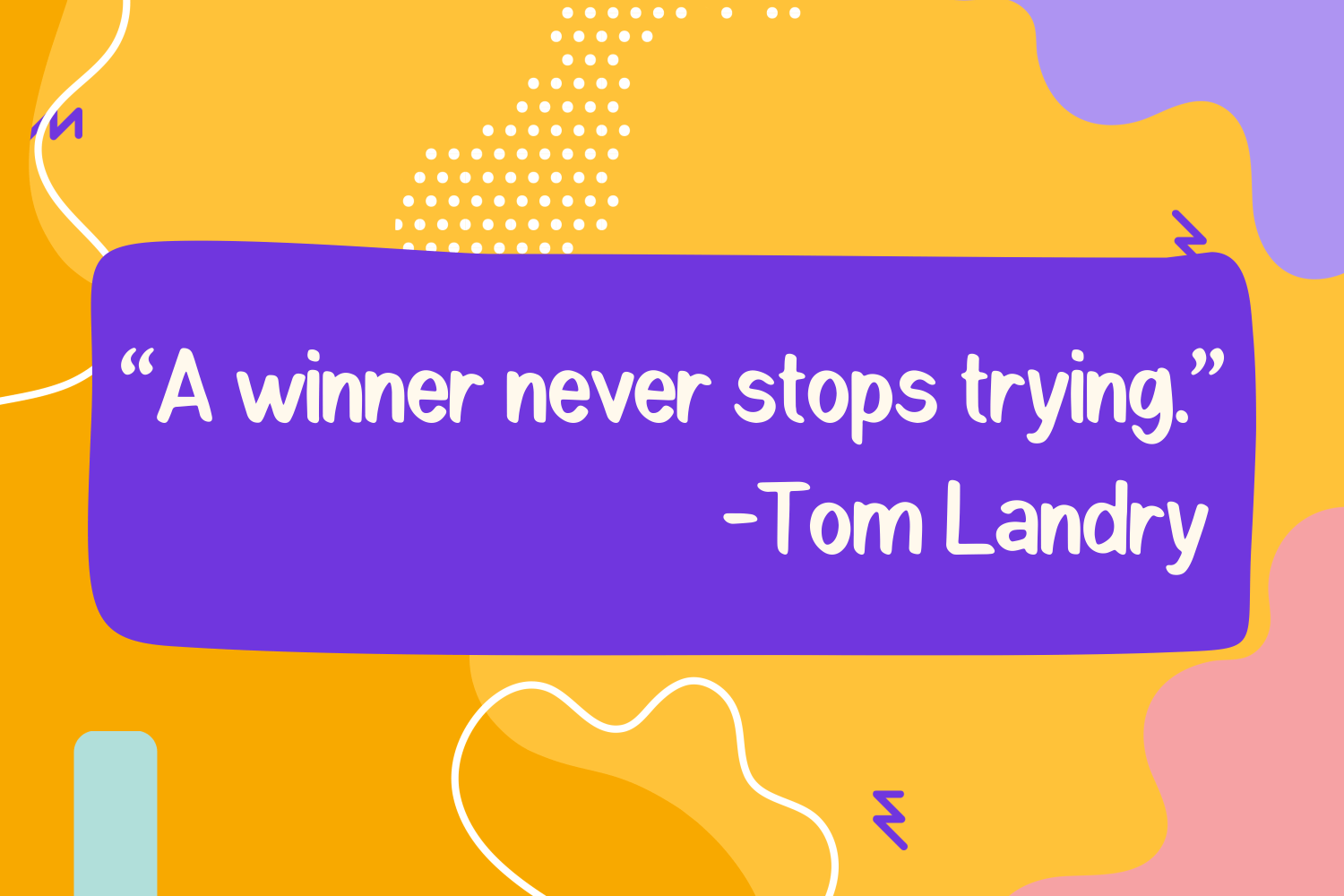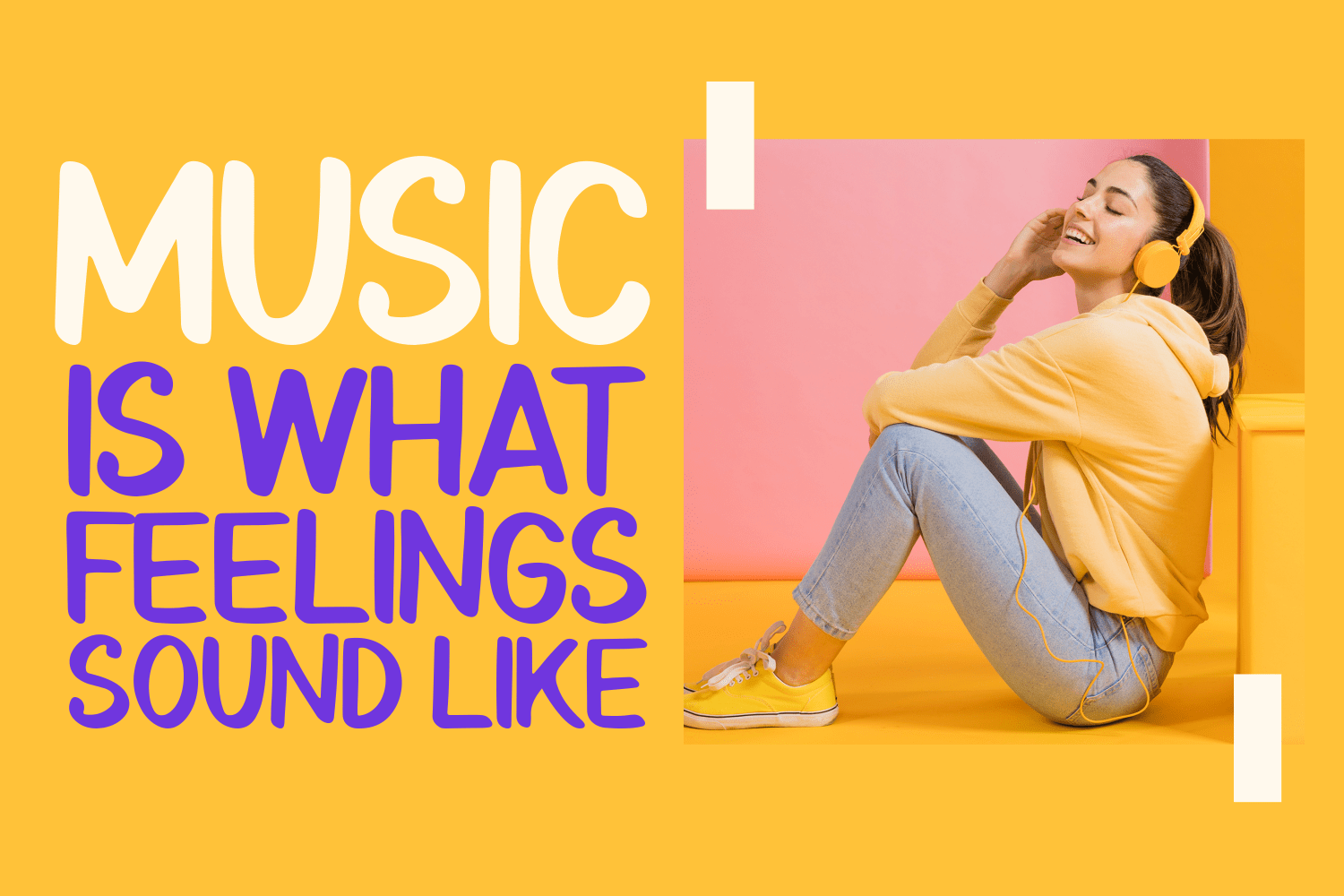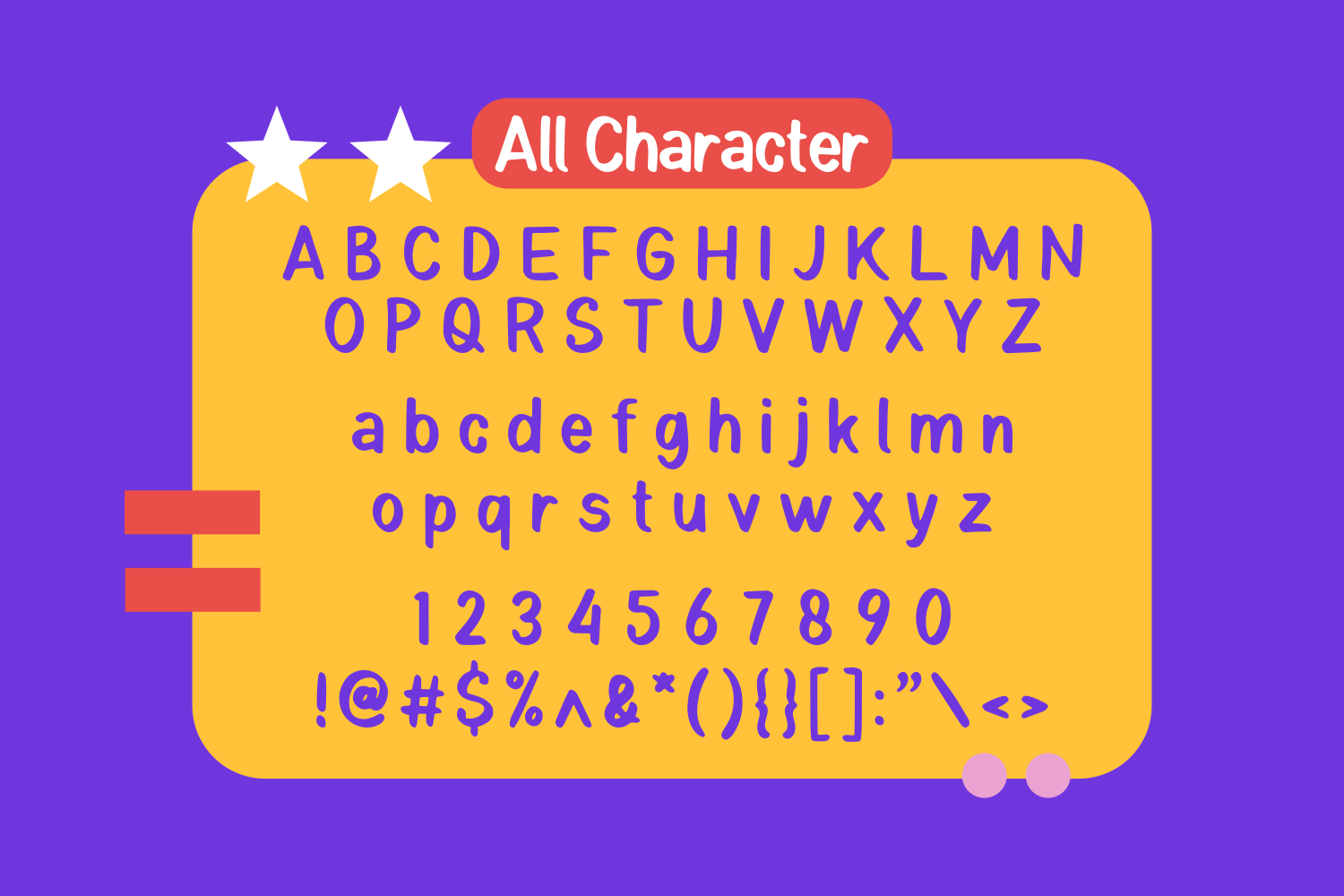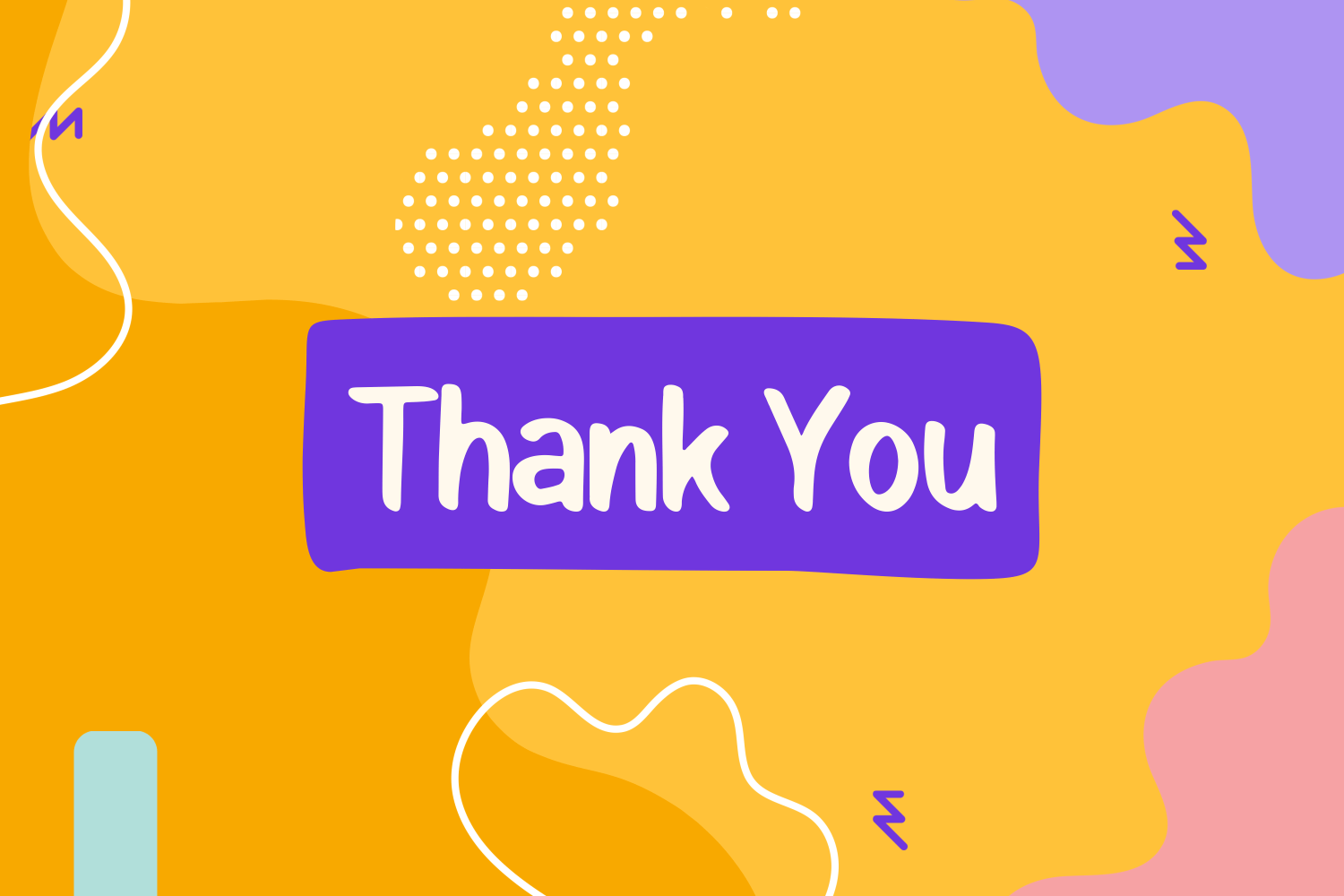
Shandera Font
Shandera Display Font is a fun and playful handwritten font. It will elevate a wide range of crafting ideas, from cards, to branding, labels and much more.